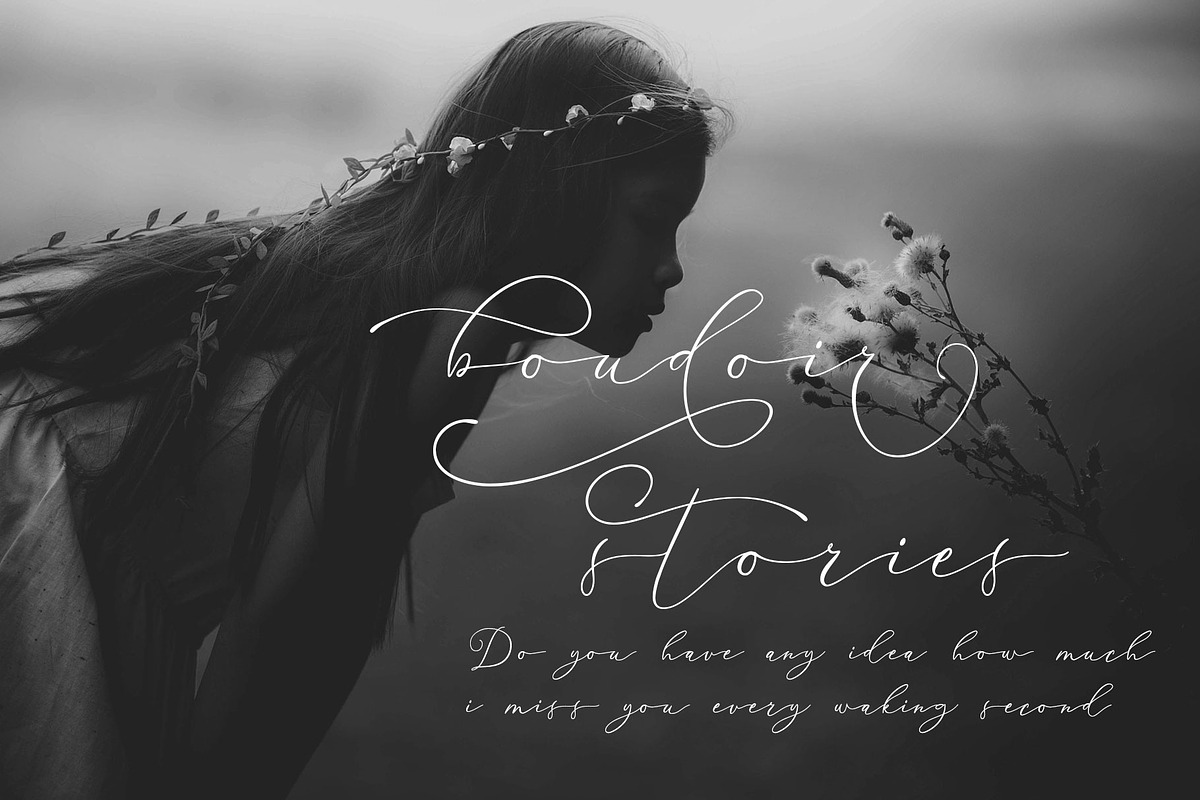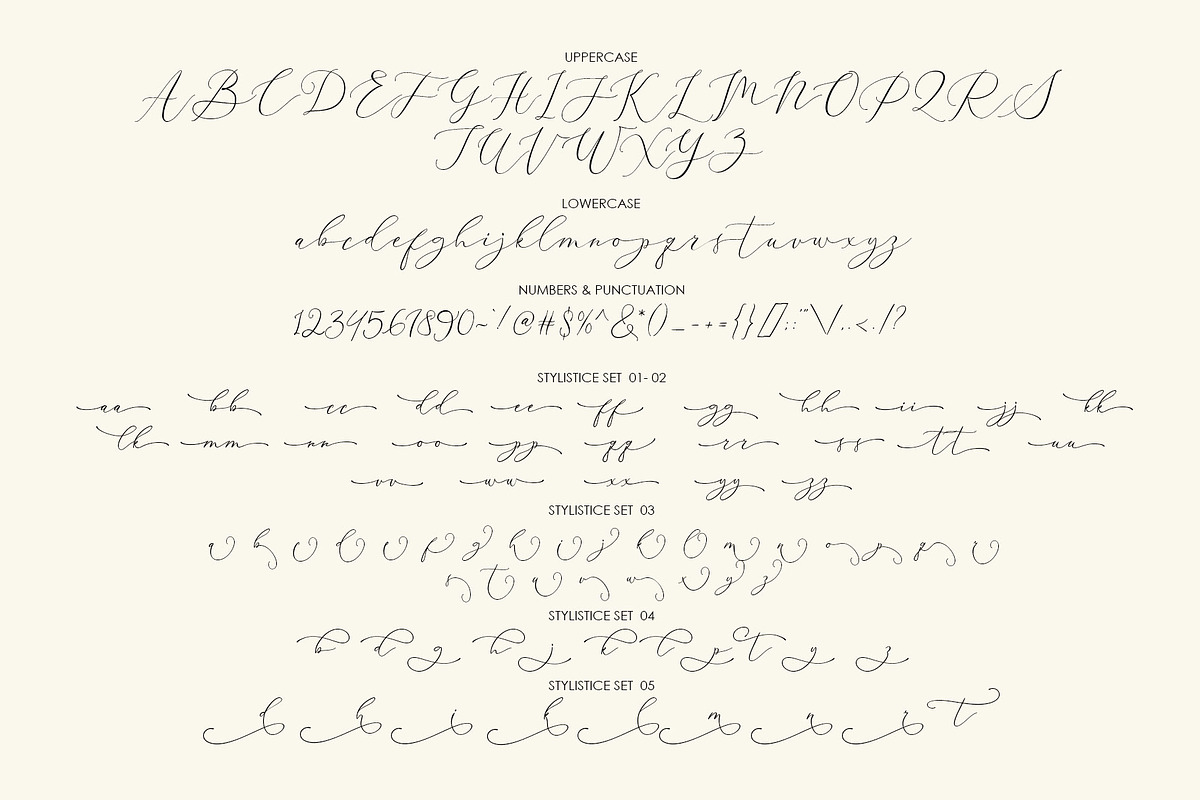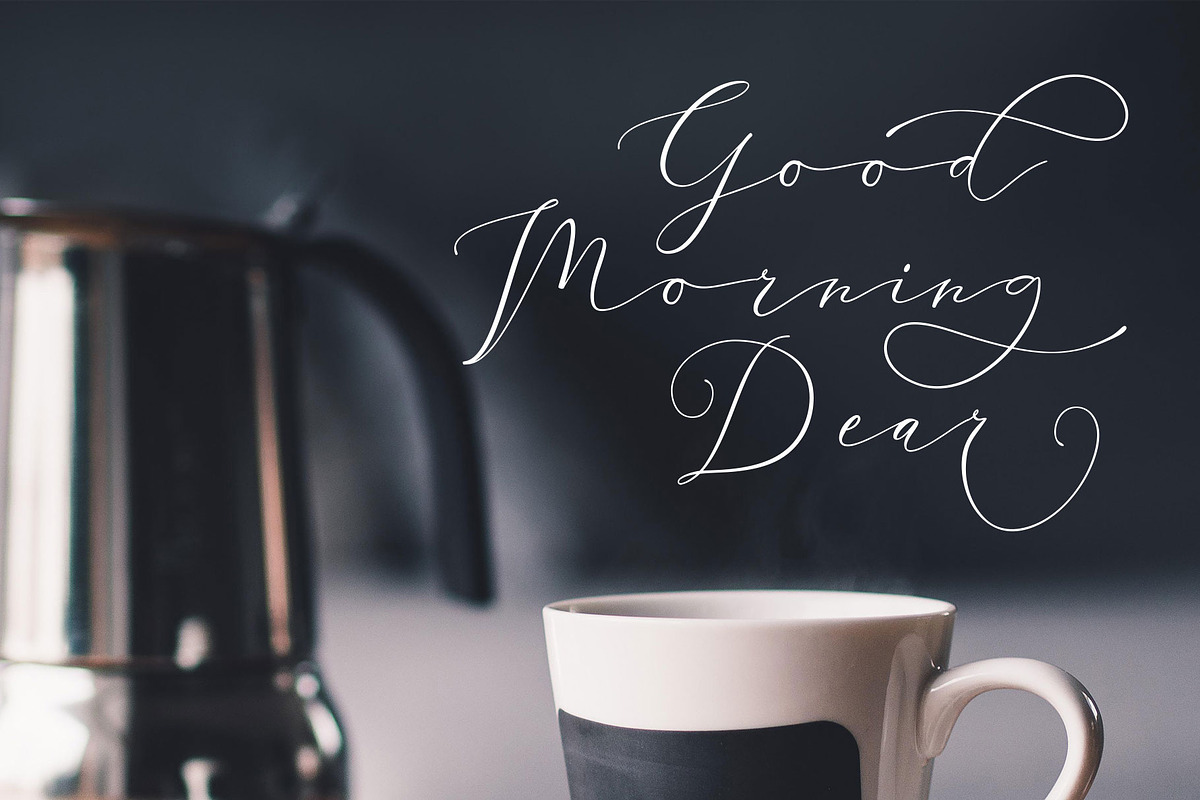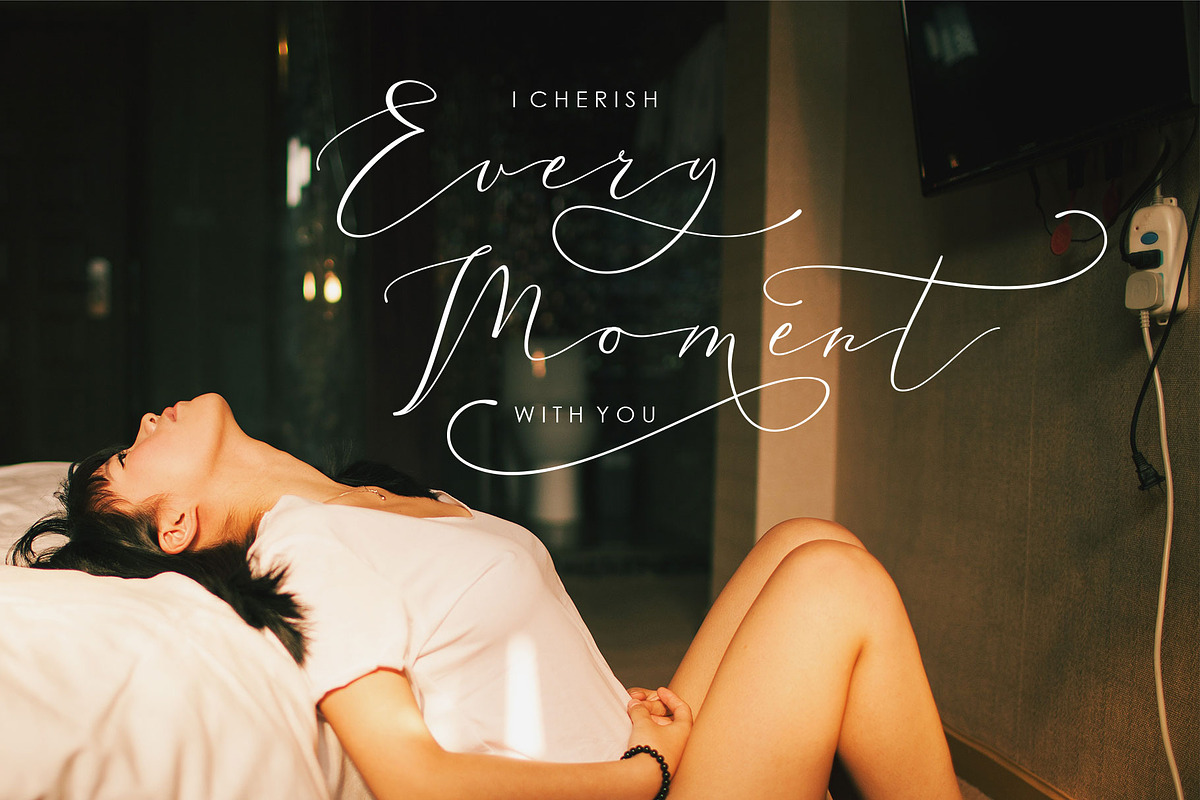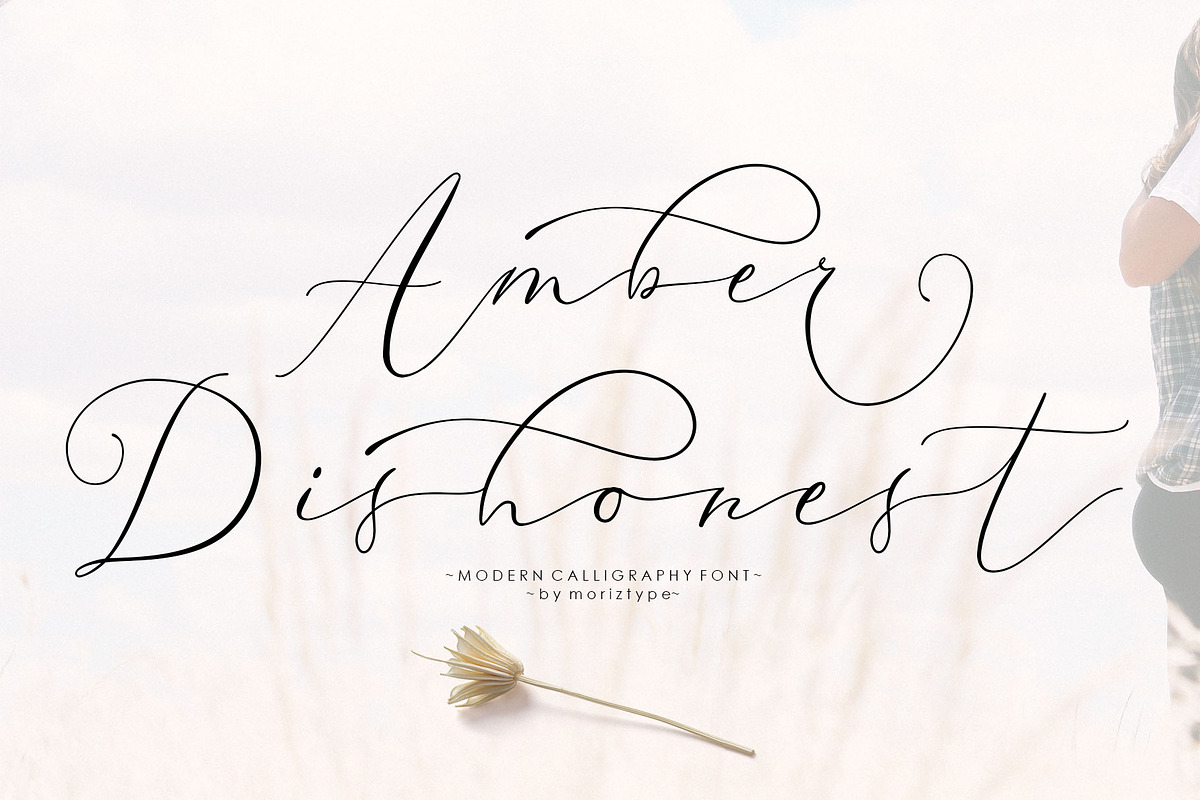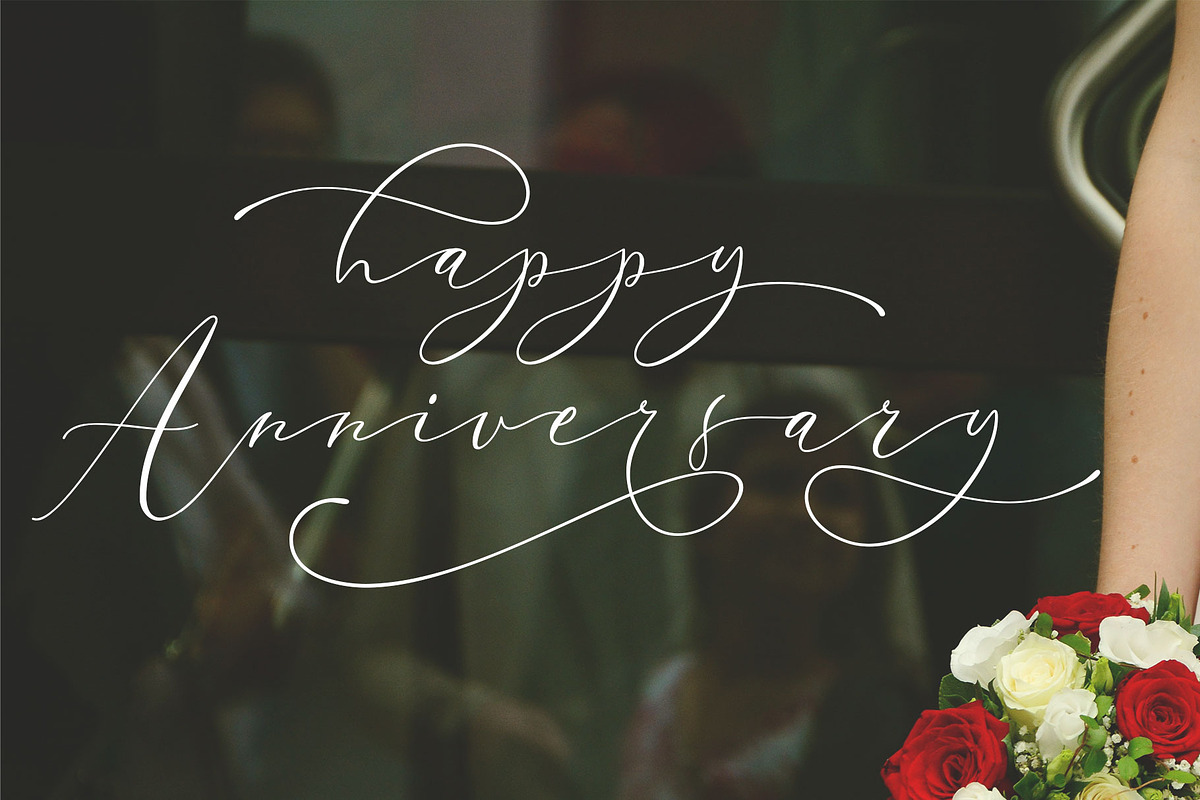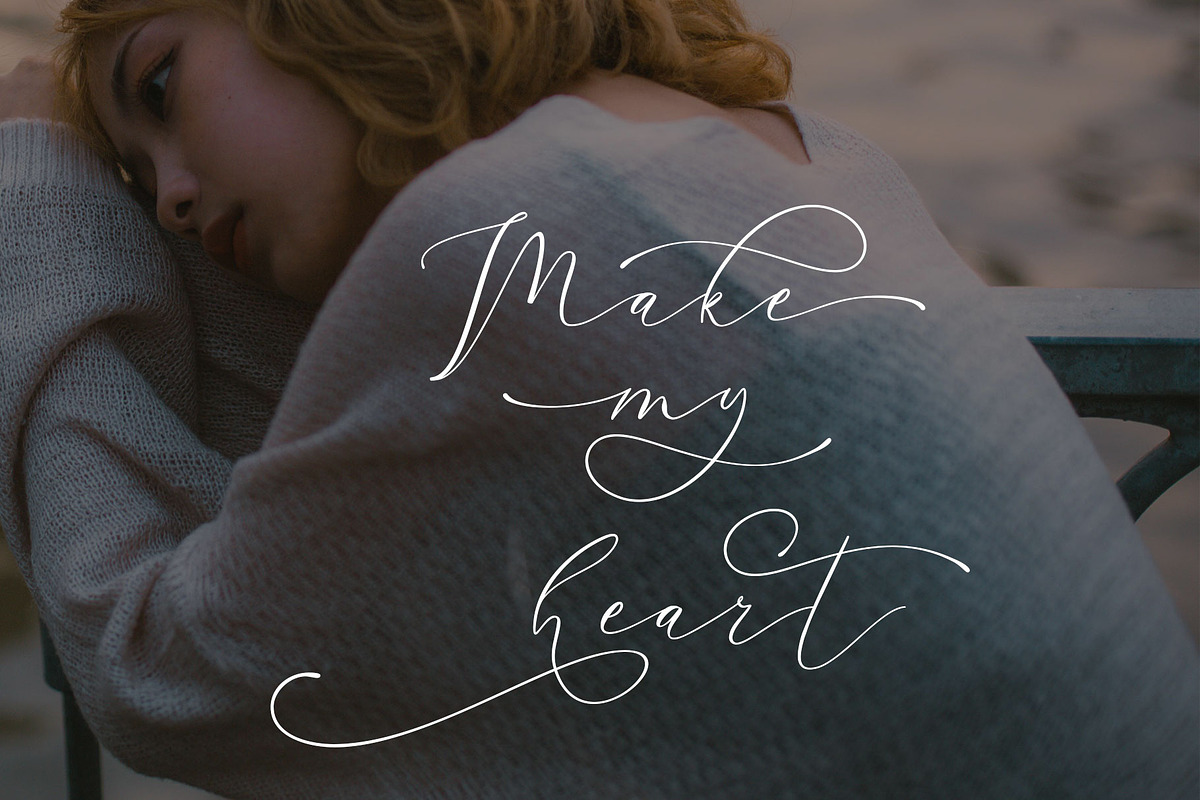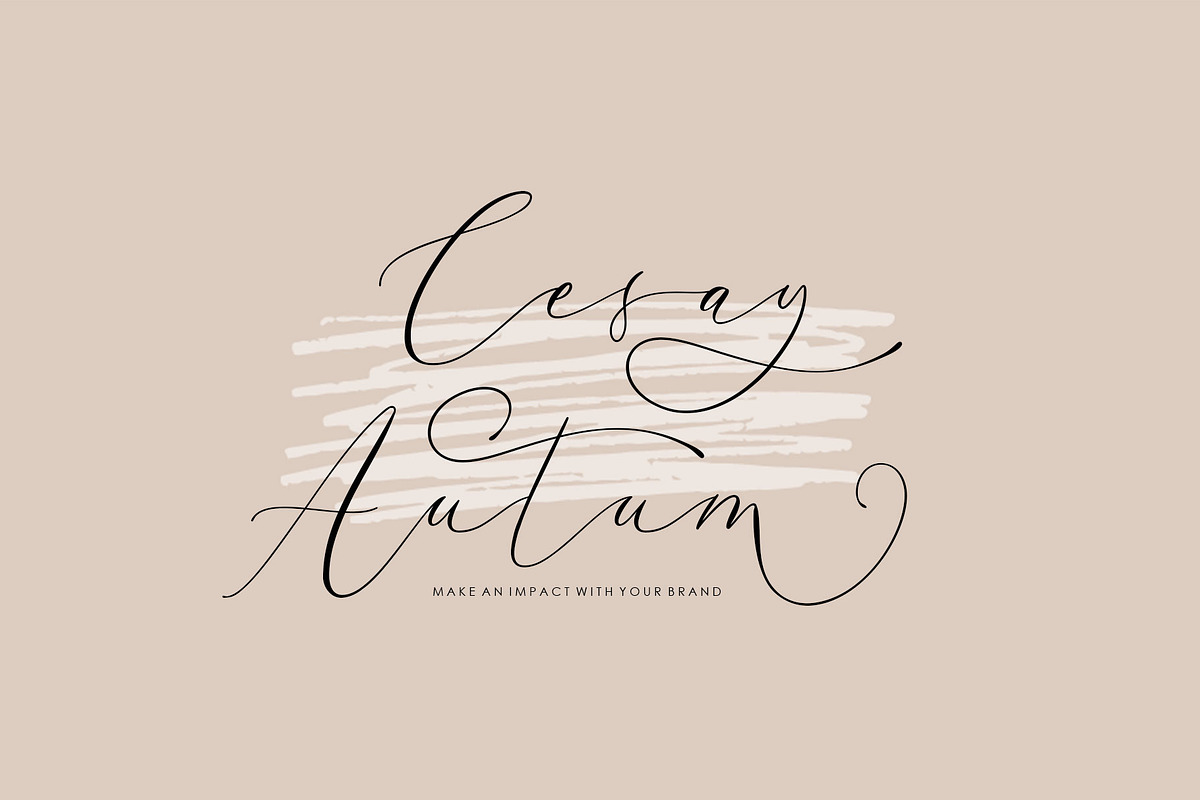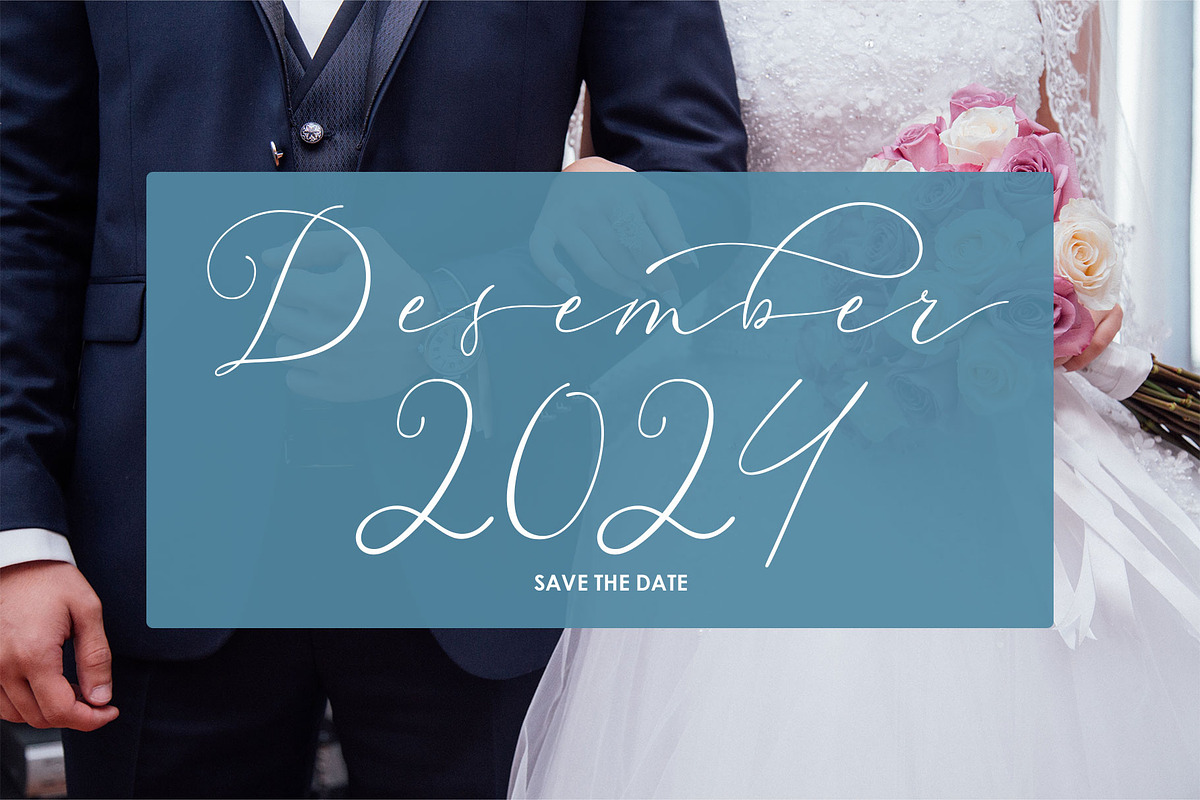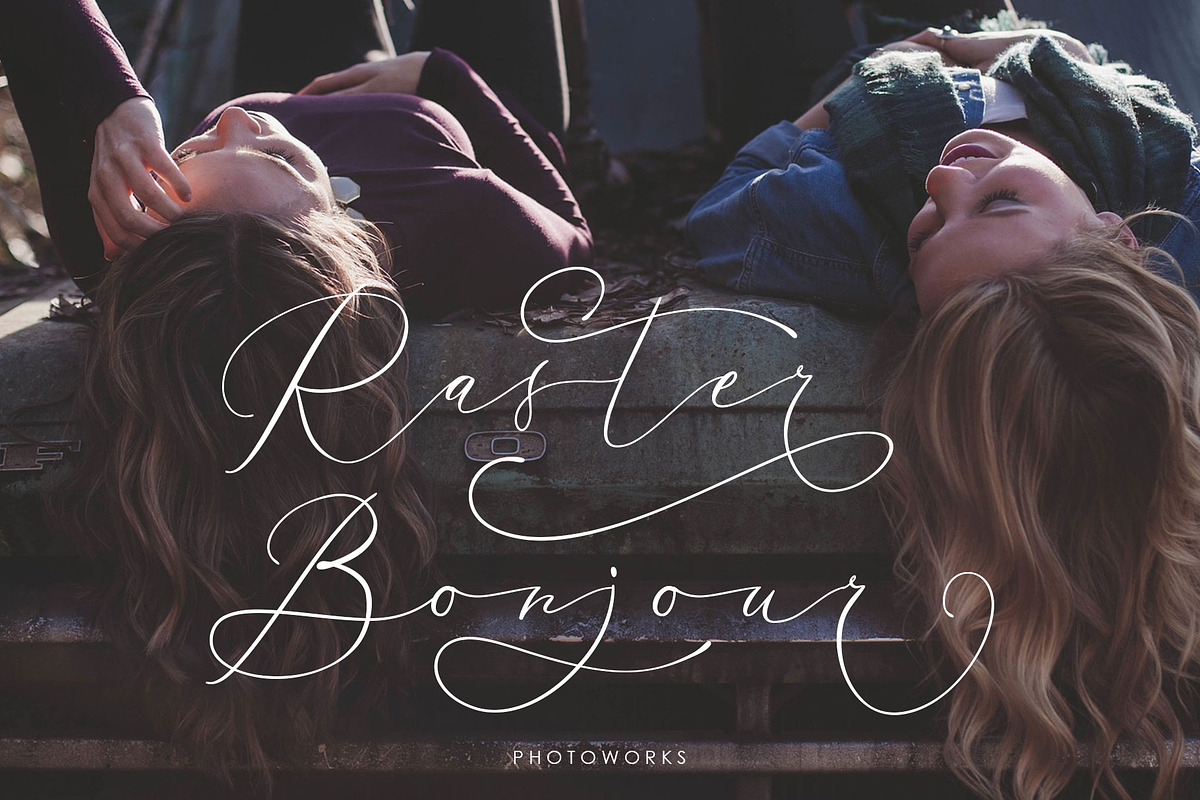
Amber Dishonest
Meet Amber Dishonest, a connected, handwriting script font perfect for wedding stationery, elegant handwritten logos and branding, websites, social media quotes, and more! Included are a full set of beginning and ending lowercase swashes, as well as a special set of connector swashes to link words together, for a handwritten calligraphic look.